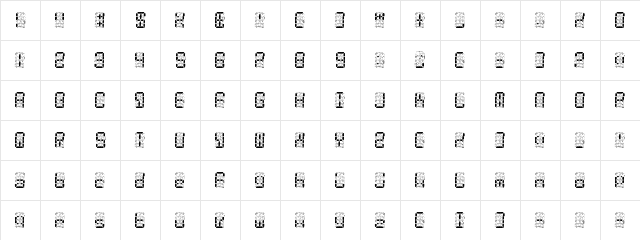
Digital Dust Regular
Design Context for Digital Dust Typeface
Digital Dust has a distinctly futuristic character, with geometric precision and clean angles that feel at home in technology, gaming, and sci-fi contexts.
Pro Tip: Use Digital Dust in combination with a neutral sans for body text. Let it define the brand voice in headlines while keeping reading comfortable elsewhere.